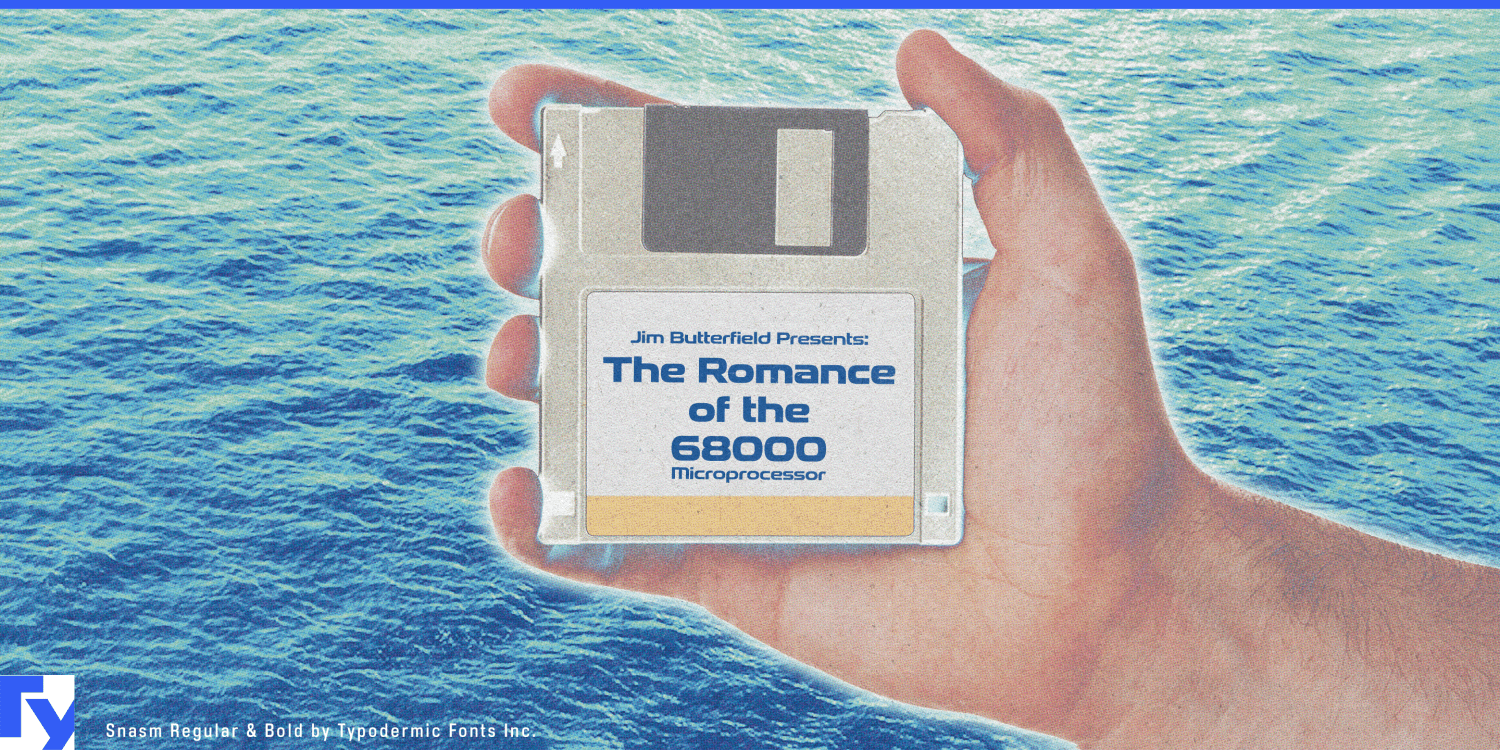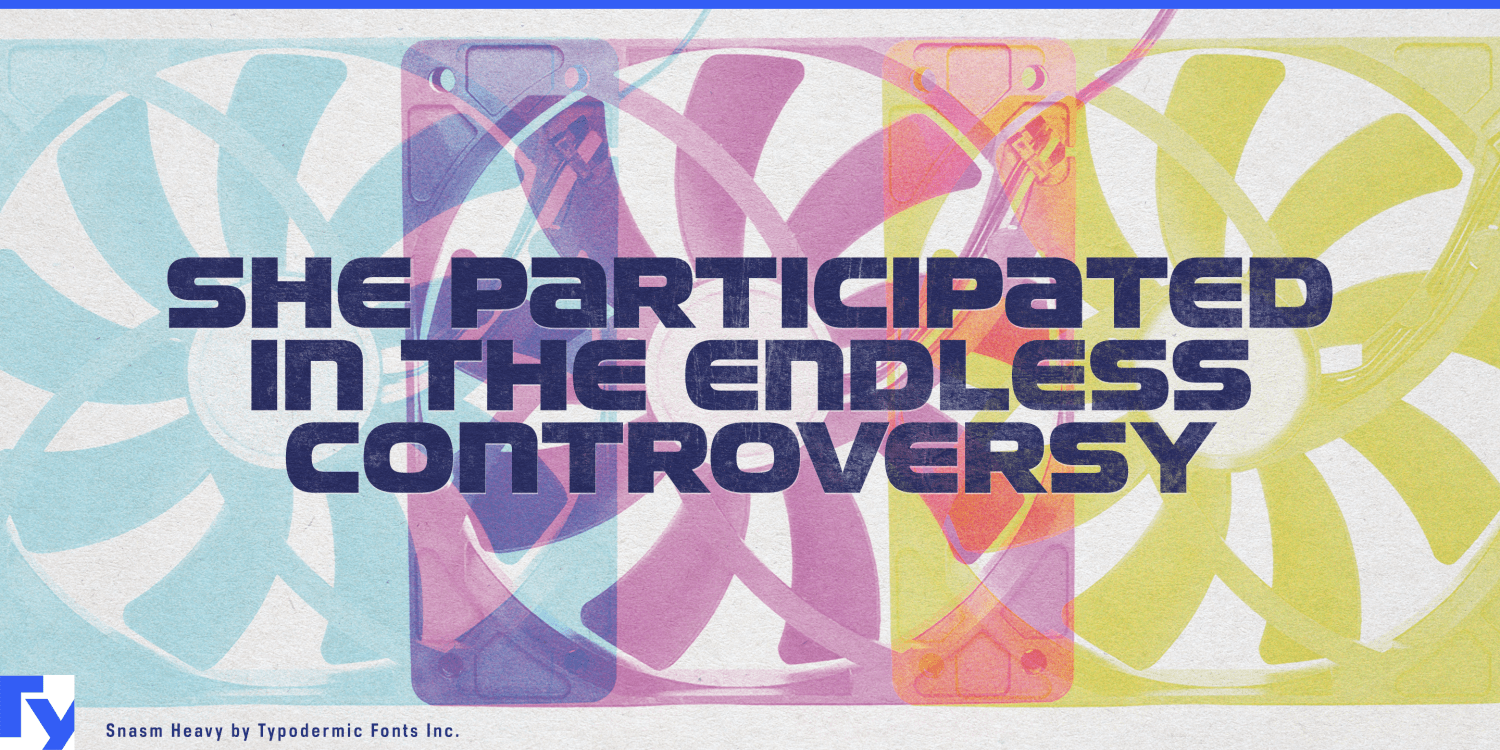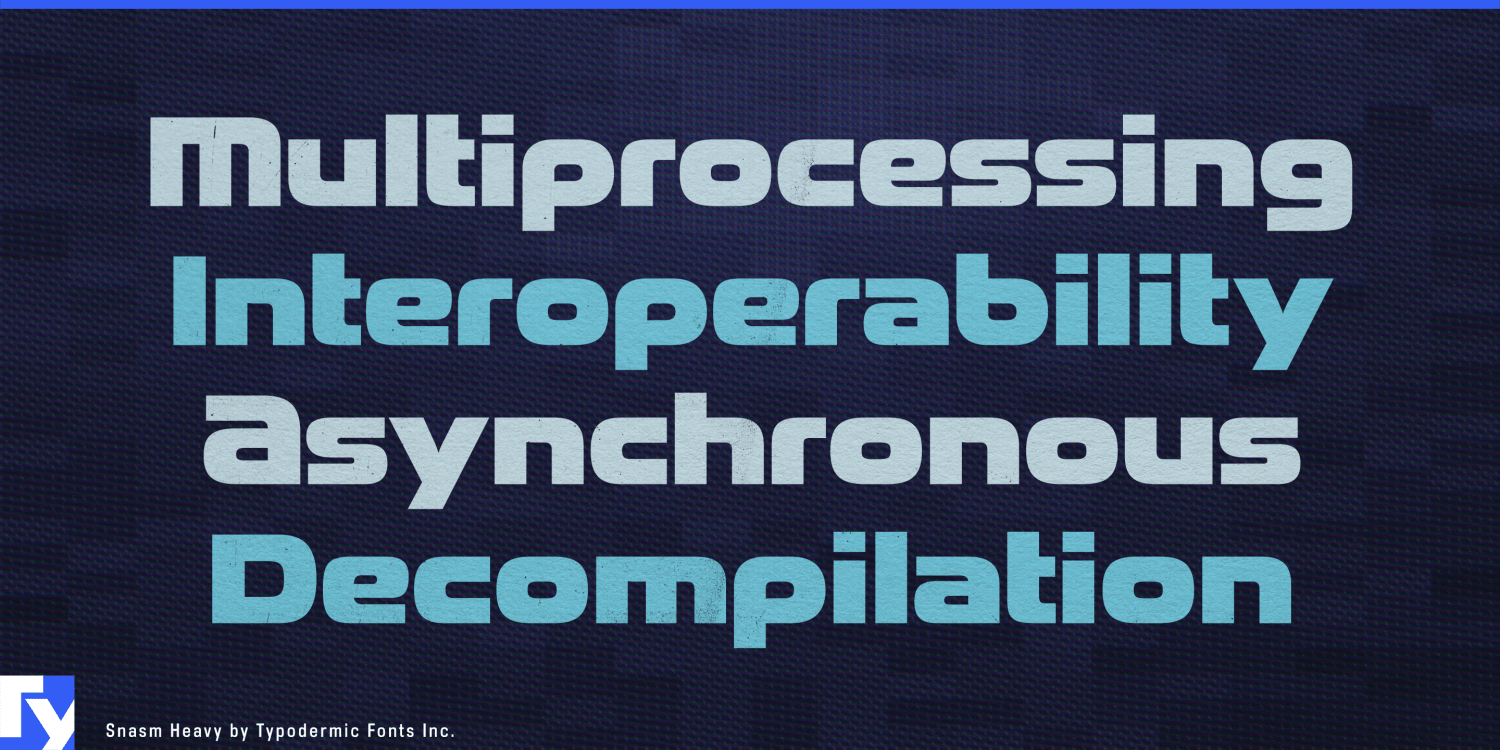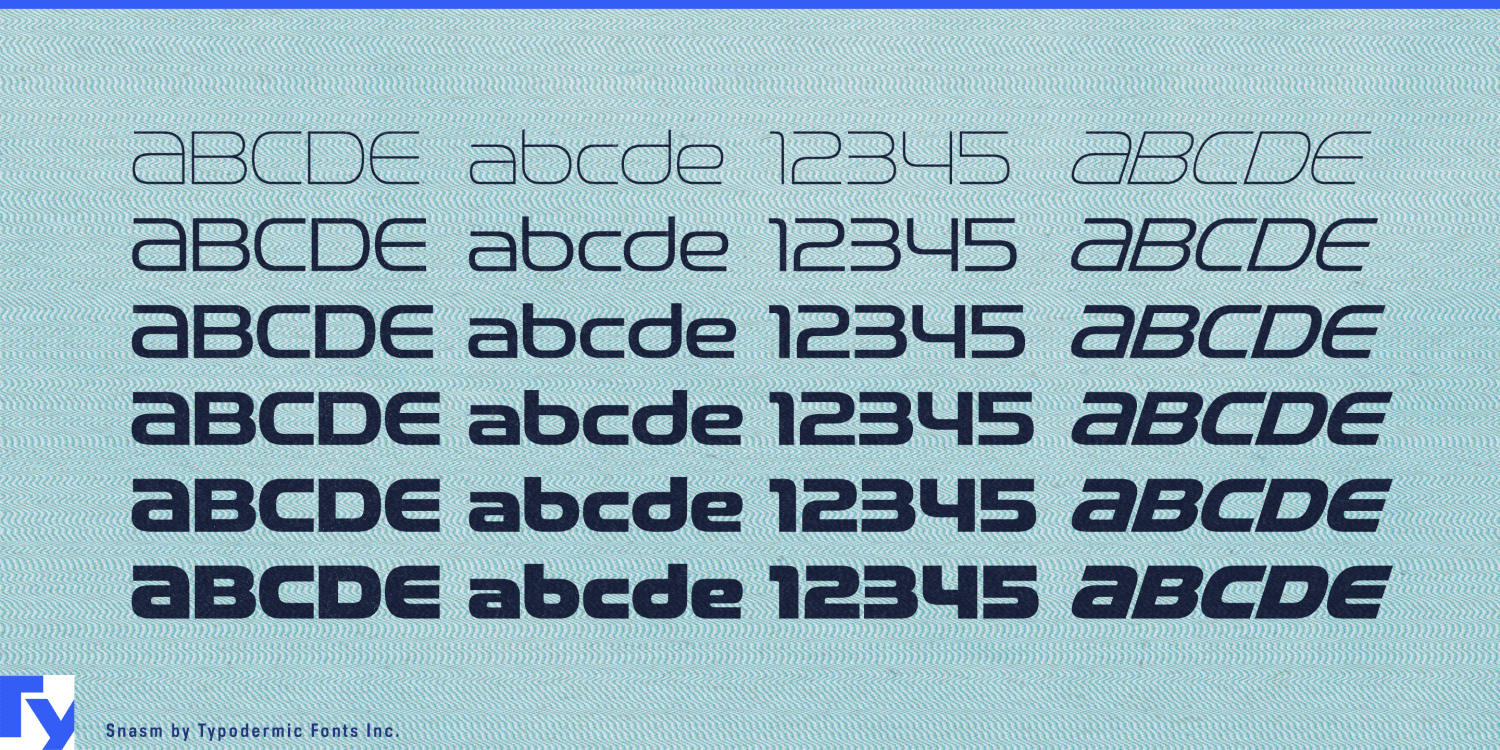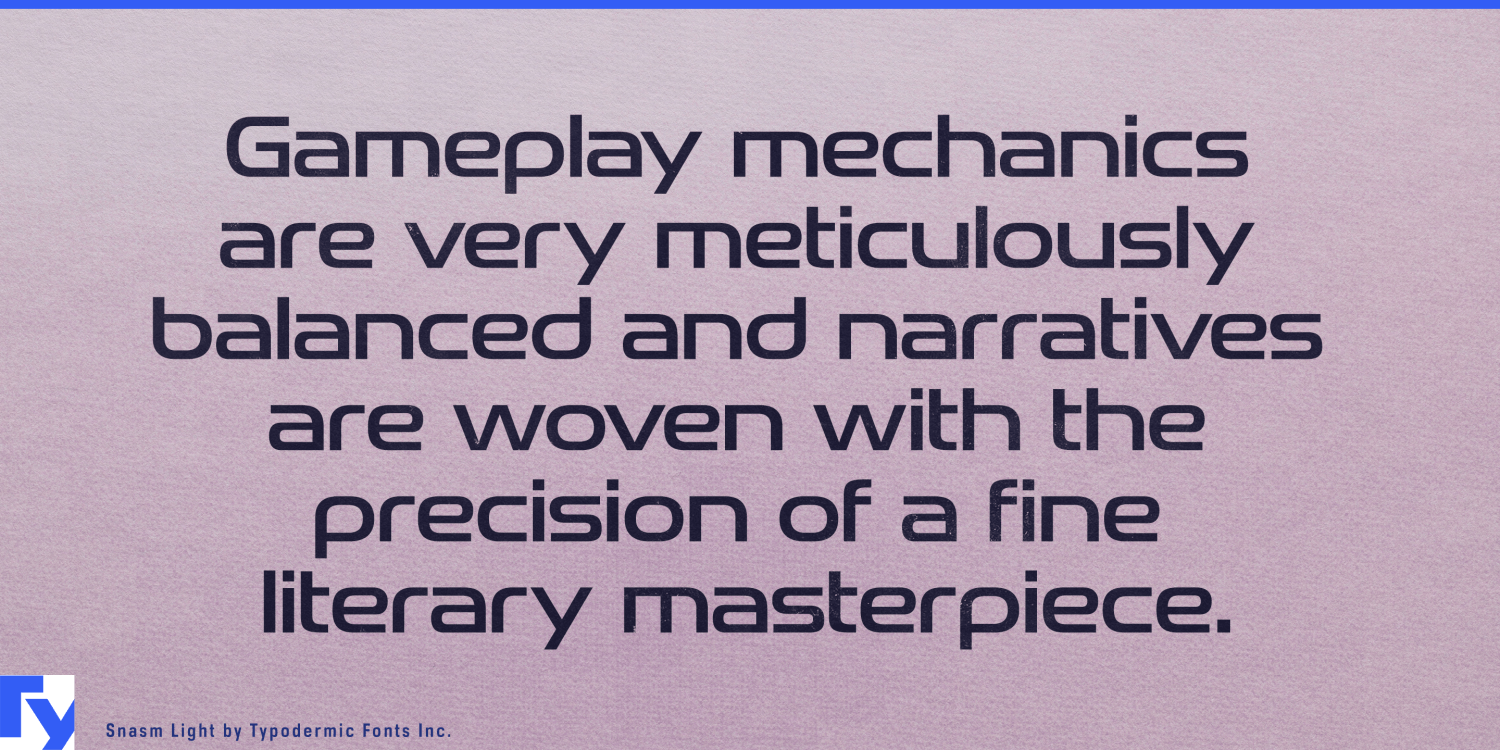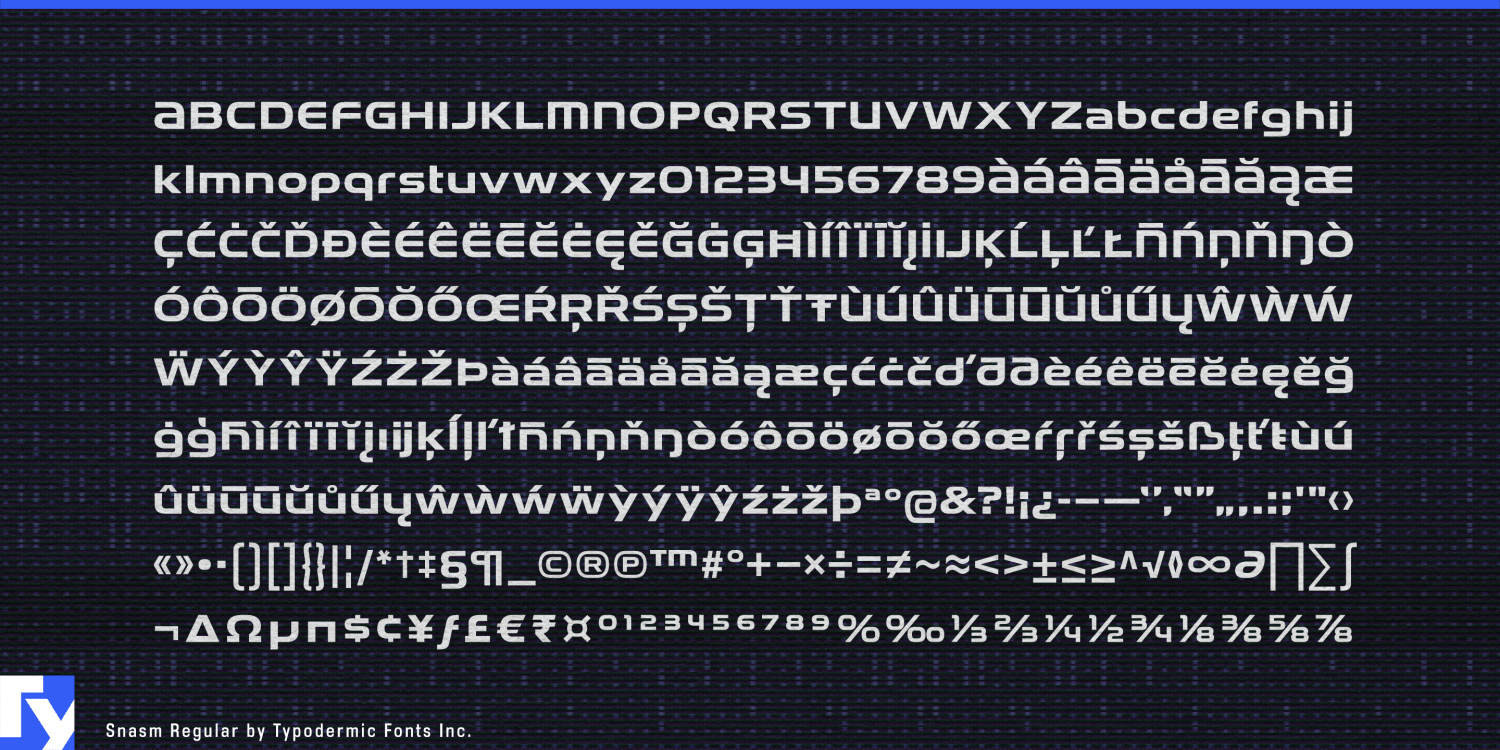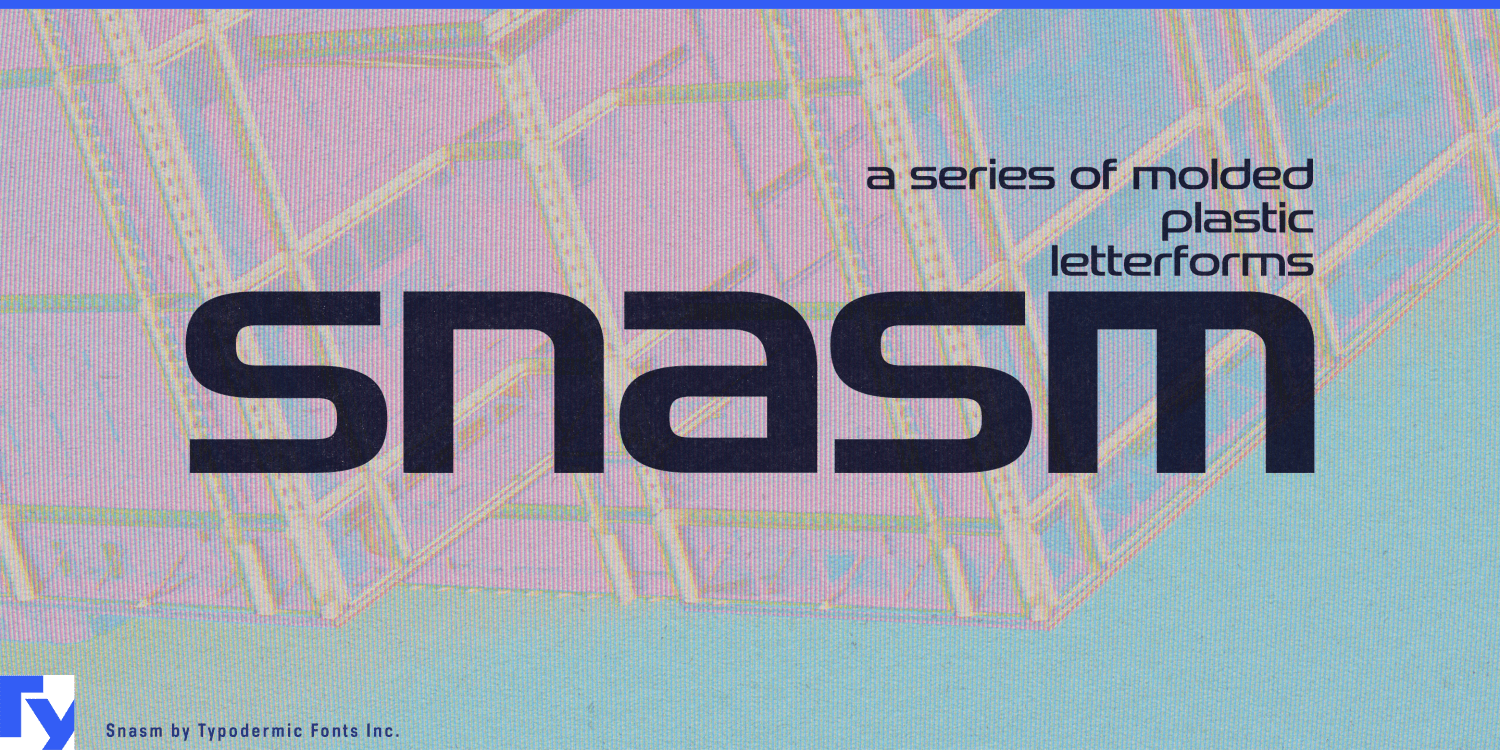
About Snasm
Venture into the realm of tomorrow with Snasm, a typeface that doesn’t just nod to the future—it blazes the trail. This is a time capsule from an era when technology promised to reshape our world, reimagined for the cutting edge of today’s…